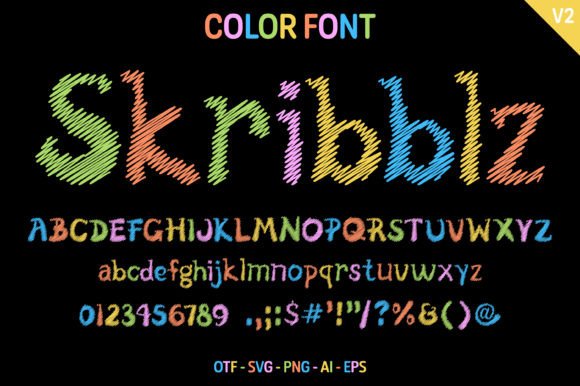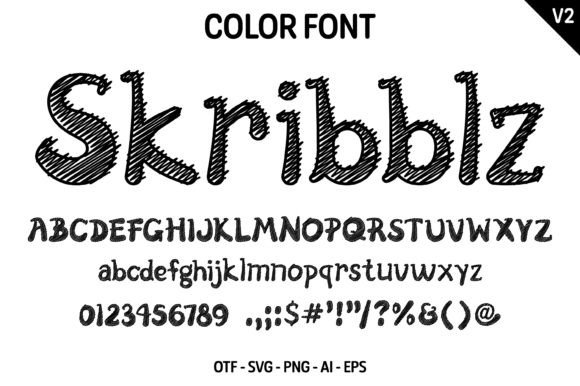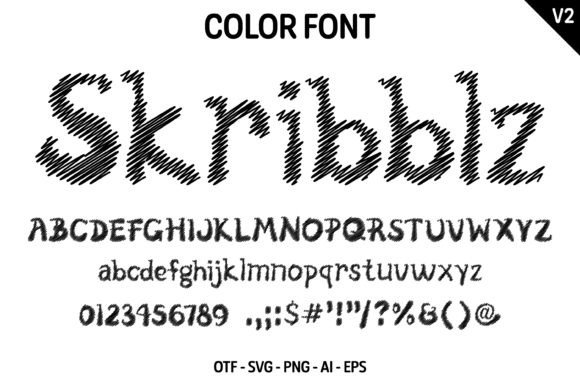
Introduction to Skribblz V2 Font
Have you ever been brainstorming ideas for a creative project, and suddenly, a burst of inspiration strikes? You envision a vibrant, playful design that brings a smile to your audience’s faces. For designers looking to add a touch of whimsy to their work, the Skribblz V2 Font is an excellent choice. This hand-drawn, scribbled typeface is designed to be both fun and highly legible, making it perfect for designs aimed at children or anyone seeking to inject a bit of playfulness into their project.
As a valuable design resource, the Skribblz V2 Font offers a high-quality, unique look that can elevate your creative project to the next level. Whether you’re working on a book cover, poster, or invitation, this font’s versatility ensures it will be a great addition to your design toolkit.
Key Features of Skribblz V2 Font
- Includes 200+ glyphs, with support for multiple languages and characters
Honest Review: Skribblz V2 Font
I recently stumbled upon the Skribblz V2 Font, and I’m excited to share my thoughts on this design resource. As a designer, I’m always on the lookout for high-quality fonts that can elevate my creative projects. Let’s dive in and see what this font has to offer!
- Unique style**: Skribblz V2 Font offers a distinctive aesthetic that’s perfect for making a statement in your designs.
- High-quality design**: The font is meticulously crafted, ensuring that every letter and symbol is precise and crisp.
- Limited character set**: While the font is beautiful, it’s limited to a standard character set, which might not be suitable for complex or technical writing.
- No italics or bold**: Unfortunately, this font doesn’t offer italics or bold variations, which can be a drawback for designers who need to emphasize certain text.
Overall, I’m impressed with the Skribblz V2 Font’s unique style and high-quality design. While it has some limitations, it’s a great addition to any designer’s toolkit, especially for free downloads. If you’re looking for a creative font to elevate your projects, I’d definitely recommend giving Skribblz V2 Font a try!
Tips for Getting the Most Out of the Skribblz V2 Font
To get the most out of the Skribblz V2 Font, use it in combination with other design elements to create a visually appealing design. Experiment with different font sizes, colors, and styles to add depth and interest to your creative project.
Common Use Cases for the Skribblz V2 Font
The Skribblz V2 Font is suitable for a wide range of creative projects, including graphic design, digital art, and marketing materials. Use it to create eye-catching headlines, logos, and other design elements that require a unique and stylish font.